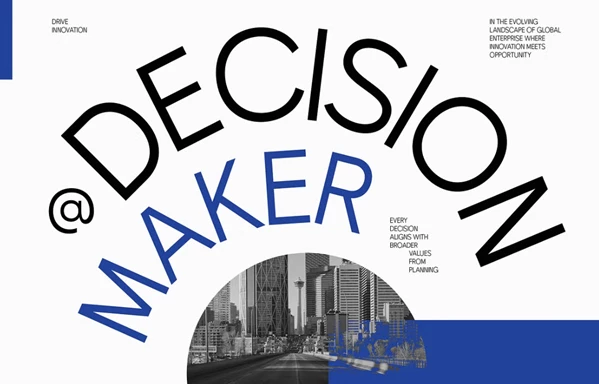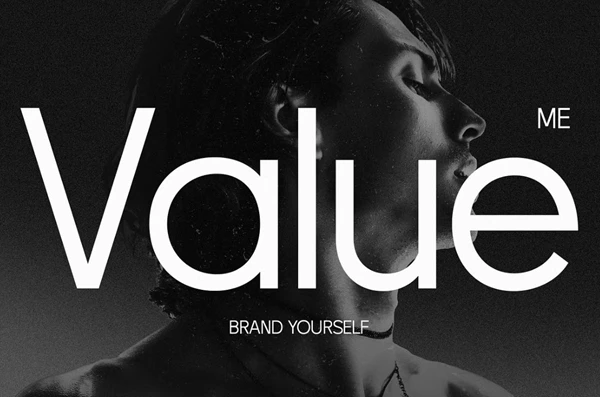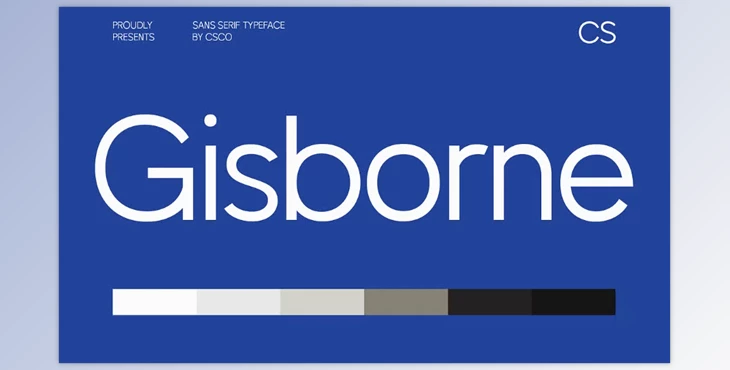
Gisborne – Contemporary Font:
CS Gisborne Font is a modern sans serif typeface that embodies a perfect blend of accuracy and a clean, modern geometric look. It was made with clarity and equilibrium in mind, thus ideal for anyone aiming for a neat and contemporary professional look. The detailing and structuring of type is such that it exudes trust and authority, therefore perfect for any professional branding, technology, and modern communication.
Some great features of Gisborne – Contemporary Font:
- Contains uppercase and lowercase characters.
- Contains numbers and punctuation according to Open Type.
- Contains accented characters for international use.
- Contains PUA Encoded characters.
"Gisborne – Contemporary Font" Samples: